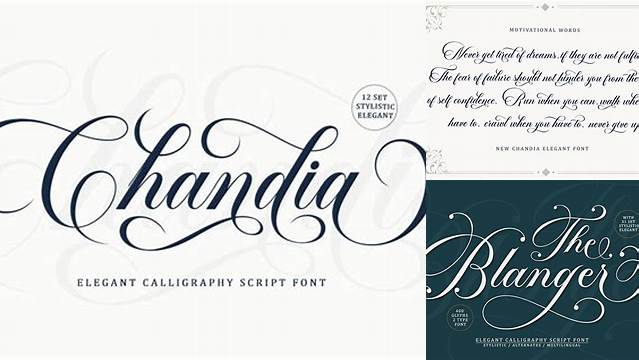
Chandia Font: Free Download, Uses, And Design Tips
Are you searching for that perfect script font to elevate your design projects? Look no further! We're diving deep into the world of Chandia, an elegant script font that's not only beautiful but also available for free. In this guide, we'll explore what makes Chandia so special, how you can download it, and, most importantly, how to use it effectively in your designs. So, buckle up, design enthusiasts, let's get started!
What Makes Chandia an Elegant Script Font?
When it comes to script fonts, Chandia stands out due to its graceful curves and sophisticated lines. This isn't just another run-of-the-mill script; it's a font that exudes elegance and charm. The flowing letterforms create a sense of movement and fluidity, making it ideal for projects that require a touch of class and refinement. What truly sets Chandia apart is its versatility. It's not just a pretty face; it's a workhorse that can adapt to various design styles and applications. Think about invitations, logos, branding materials, and even website headers – Chandia can handle it all! The font's readability, even in longer texts, is another key advantage. While some script fonts can become illegible at smaller sizes or in dense paragraphs, Chandia maintains its clarity and legibility. This makes it a practical choice for both display and body text applications. The attention to detail in the font's design is evident in every character. From the delicate swashes to the carefully crafted connections between letters, Chandia showcases a level of craftsmanship that is often found in premium fonts. The font's creator has clearly poured their heart and soul into its design, resulting in a typeface that is both aesthetically pleasing and highly functional. In comparison to other free script fonts, Chandia often comes out on top in terms of its overall quality and usability. Many free fonts suffer from inconsistencies in letterforms, spacing issues, or limited character sets. Chandia, on the other hand, boasts a complete character set, consistent design, and well-balanced spacing. This makes it a reliable choice for professional designers and hobbyists alike. So, if you are seeking a font that combines beauty, versatility, and readability, Chandia is definitely worth considering. It's a font that can truly elevate your designs and give them that touch of elegance you've been looking for. In the next section, we'll guide you through the process of downloading this fantastic font and getting it ready for your next project.
Tips for Using Chandia Effectively in Your Designs
Now that you've got Chandia installed, let's talk about how to use it like a pro! While this font is undeniably beautiful, like any design element, it's all about context and execution. Effective use of Chandia can elevate your project, but misuse can detract from the overall design. So, let's dive into some key tips to ensure you're maximizing Chandia's potential. First and foremost, consider the tone and message of your design. Chandia, with its elegant and flowing script, is best suited for projects that convey a sense of sophistication, romance, or creativity. Think wedding invitations, branding for luxury products, or website headers for creative businesses. It might not be the best choice for conveying a serious or corporate tone. Pairing Chandia with the right fonts is crucial. Because it's a script font, it's best to pair it with a clean and simple sans-serif or serif font for body text. This creates a visual hierarchy and ensures readability. Imagine using a bold sans-serif like Open Sans or Montserrat for headlines and Chandia for subheadings or call-to-actions. The contrast will be visually appealing and make your design more engaging. Think about the size and spacing of Chandia. Script fonts, in general, can be tricky when it comes to legibility, especially at smaller sizes. Make sure Chandia is large enough to be easily readable, and pay attention to the letter spacing and line height. Adjusting these settings can significantly improve the font's clarity and impact. Kerning, the spacing between individual letters, is especially important with script fonts. Chandia has been carefully designed, but you may still need to make minor adjustments to the kerning in certain letter combinations to achieve perfect balance. Many design programs offer kerning tools that allow you to fine-tune the spacing between letters. Color plays a significant role in how Chandia is perceived. A soft, muted color palette can enhance the font's elegance, while a bold and vibrant color scheme can give it a more modern and playful feel. Experiment with different color combinations to find what works best for your project. Chandia can be a great choice for logos, but use it sparingly. A logo that is entirely in a script font can be difficult to read at smaller sizes. Consider using Chandia for a portion of the logo, such as the company name, and pair it with a simpler font for other elements. Finally, don't be afraid to experiment with Chandia! Try using it in different sizes, weights, and colors. Play around with different font pairings and design layouts. The more you experiment, the better you'll understand how to use Chandia effectively in your designs. By following these tips, you can ensure that Chandia becomes a valuable asset in your design toolkit. In the next section, we'll explore some specific design applications where Chandia truly shines.
Design Applications Where Chandia Shines
So, where does Chandia really knock it out of the park? This elegant script font is a versatile player, but there are certain design applications where it truly shines. Let's explore some scenarios where Chandia can add that extra oomph to your projects. Wedding invitations are a classic example. The flowing script and graceful lines of Chandia perfectly complement the romantic and celebratory nature of weddings. Imagine using Chandia for the couple's names, the date, and other key details, paired with a simple serif font for the body text. The result is an invitation that exudes elegance and sophistication. Branding for luxury products and services is another area where Chandia excels. The font's upscale feel makes it ideal for businesses in industries such as fashion, beauty, and hospitality. Think logos, packaging, and website design for high-end brands. Chandia can help create a sense of exclusivity and prestige. Websites and blogs can also benefit from Chandia's charm. Using it for headings, subheadings, or call-to-actions can add a touch of personality and visual interest. However, it's important to use it sparingly and pair it with a highly readable body font to ensure a positive user experience. Overusing script fonts on a website can lead to readability issues, so moderation is key. Social media graphics are another great canvas for Chandia. Use it to create eye-catching quotes, announcements, or promotional posts. Its elegant style can help your content stand out in a crowded newsfeed. Just make sure the text is large enough to be legible on smaller screens. Greeting cards and stationery are a natural fit for Chandia. Its graceful script adds a personal and heartfelt touch to handwritten notes, thank-you cards, and other correspondence. Consider using it for the recipient's name or a special message. Book covers, especially for genres like romance, historical fiction, or poetry, can benefit from Chandia's elegant touch. It can create a sense of romance, mystery, or sophistication, drawing readers in. The key is to ensure the font complements the overall tone and style of the book. In general, any project that requires a touch of elegance, sophistication, or romance is a good candidate for Chandia. But remember, the best way to discover Chandia's full potential is to experiment and see how it works in different contexts. Don't be afraid to try it out in unexpected places – you might just be surprised at the results. Chandia is a fantastic free script font that can elevate your designs when used thoughtfully. In our final section, we'll recap the key takeaways and offer some final thoughts on incorporating Chandia into your design workflow.
Final Thoughts on Chandia Elegant Script Font
Alright, we've reached the end of our Chandia journey, guys! Let's recap what we've learned and leave you with some final thoughts on this fantastic free script font. Chandia is, without a doubt, an elegant and versatile typeface that can add a touch of sophistication to a wide range of design projects. Its graceful curves, flowing lines, and overall charm make it a standout choice for anything from wedding invitations to branding materials. Remember, the key to using Chandia effectively lies in understanding its strengths and limitations. It's a font that excels in conveying elegance, romance, and creativity, but it might not be the best choice for projects that require a serious or corporate tone. Pairing Chandia with the right fonts is crucial for creating a balanced and visually appealing design. Stick to clean and simple sans-serif or serif fonts for body text, and use Chandia sparingly for headings, subheadings, or call-to-actions. Legibility is always a top priority, especially with script fonts. Make sure Chandia is large enough to be easily readable, and pay attention to the letter spacing and line height. Kerning adjustments may also be necessary to achieve perfect balance in certain letter combinations. Don't underestimate the power of color when working with Chandia. Experiment with different color palettes to find what best complements the font's style and the overall message of your design. Chandia is a valuable asset in any designer's toolkit, especially considering it's available for free. However, it's important to respect the font's license and usage terms. Always check the license before using a free font in commercial projects. By following the tips and guidelines we've discussed, you can confidently incorporate Chandia into your design workflow and create stunning visuals that capture attention and convey your message effectively. So go ahead, download Chandia, and start experimenting! Let your creativity flow and see how this elegant script font can transform your designs. And remember, the best way to master any font is to practice and explore its full potential. We hope this guide has been helpful and inspiring. Happy designing, everyone! Remember to always prioritize readability, consider the context, and most importantly, have fun with it. Chandia is a wonderful tool, but it's your creativity that will truly bring your designs to life. So go out there and make something beautiful!